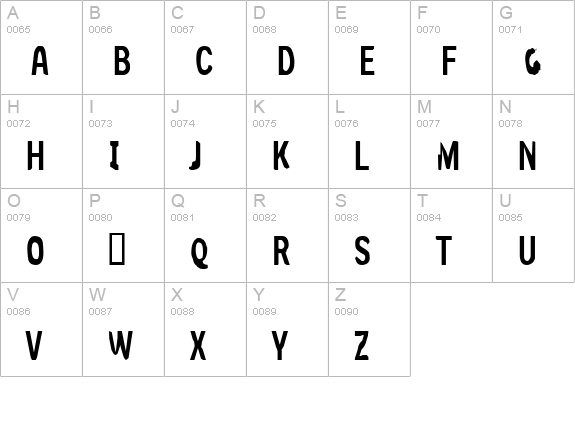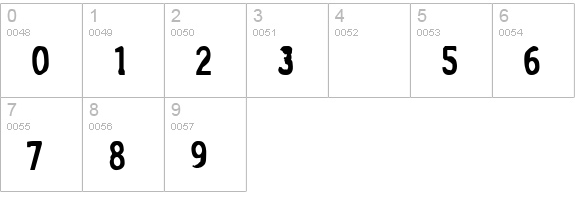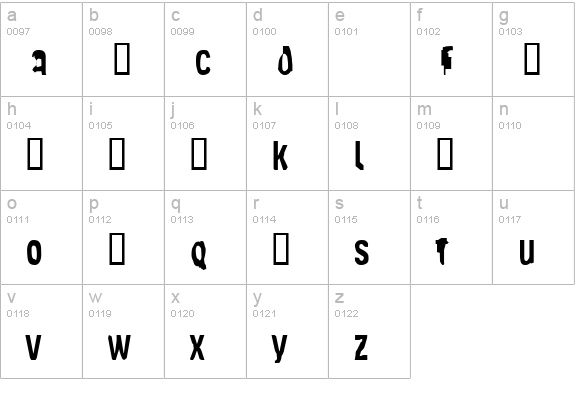
Slim Jim [part one] Font Details
Introducing Slim Jim [part one], a contemporary and stylish font that is sure to add a touch of elegance to any design project. This font is the perfect choice for those seeking a versatile and eye-catching typeface that effortlessly combines modernity with a classic appeal. Slim Jim [part one] features sleek and clean lines, making it ideal for a wide range of applications. Whether you're designing a logo, creating a website, or crafting invitations, this font will bring your ideas to life with its refined and sophisticated appearance. With its wide range of characters and glyphs, Slim Jim [part one] offers endless possibilities for creative expression. From bold headlines to delicate script, this font allows you to experiment and explore various typographic styles, adding depth and personality to your designs. But the best part? Slim Jim [part one] is available to download for free at FontsMarket.com. Yes, you read that right - this exceptional font can be yours without spending a dime. FontsMarket.com is a trusted source for high-quality fonts, and they are delighted to offer Slim Jim [part one] as a free download for your convenience. So why wait? Get your hands on Slim Jim [part one] today and elevate your designs to new heights. Whether you're a professional designer or a creative enthusiast, this font will undoubtedly become an essential tool in your typographic arsenal. Download it now and unleash your creativity with Slim Jim [part one], the font that combines elegance, versatility, and accessibility all in one package.